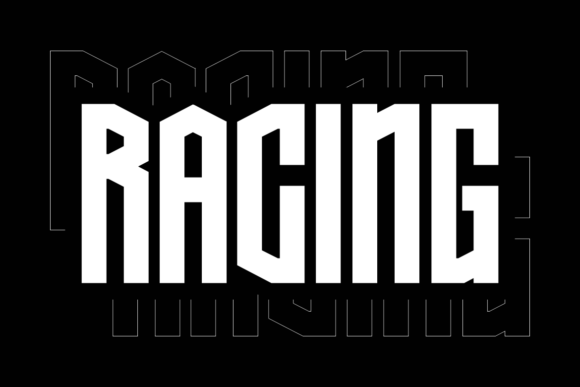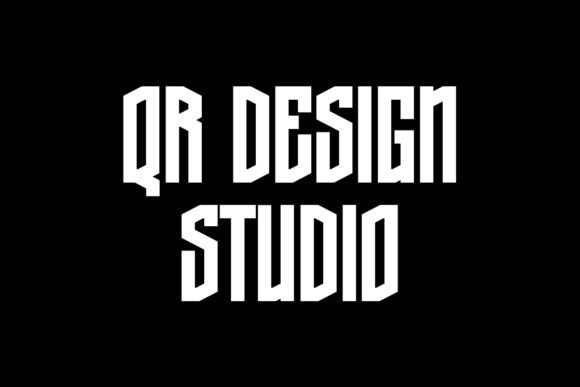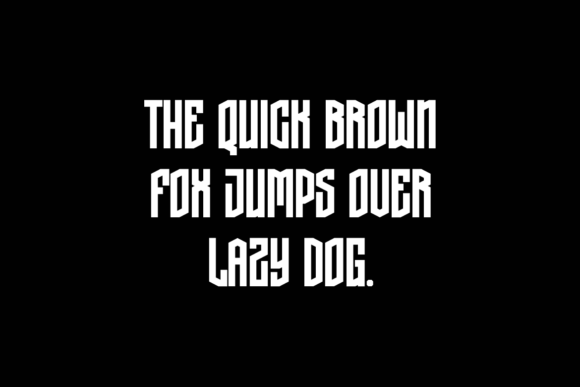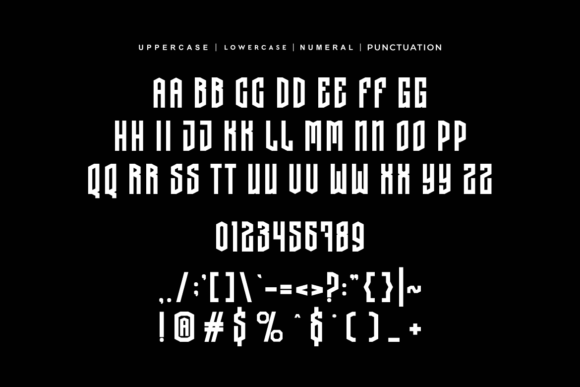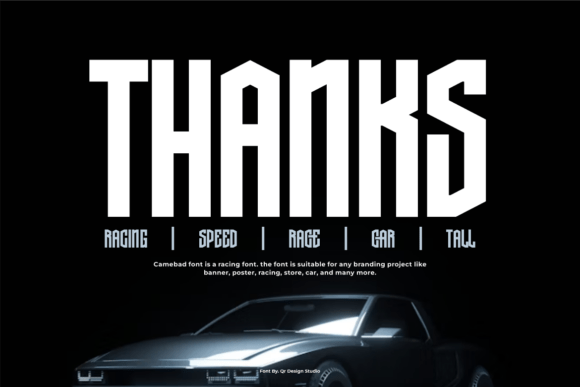
Unleash Your Creativity with Camebad Font: The Ultimate Racing Typeface
I’ll never forget the time I was working on a racing game project, and my client asked me to create a bold, eye-catching title that would capture the essence of speed and adrenaline. I scoured the internet for the perfect font, but nothing seemed to fit the bill. That was until I stumbled upon Camebad Font. With its tall, angular letters and strong geometric design, it was love at first sight! 💥
In this article, we’ll dive into the world of Camebad Font, exploring its features, benefits, and uses. Whether you’re a designer, crafter, or creative hobbyist, you’ll learn how to harness the power of this incredible typeface to take your projects to the next level.
What Makes Camebad Font So Special?
Camebad Font is a bold, modern racing typeface built for speed, power, and adrenaline. Its sharp edges and bold presence make it ideal for titles, headlines, and branding where attention and strength are key. Here are some of the features that make Camebad Font stand out:
- ✨ Tall and angular letters: Perfect for creating eye-catching titles and headlines that demand attention.
- ✅ Strong geometric design: Gives your designs a sense of precision and intensity.
- ⚡️ Perfect for high-impact branding: Use Camebad Font to create logos, banners, and posters that leave a lasting impression.
What I Love About Camebad Font
- ✨ Versatility: Camebad Font can be used for a wide range of projects, from racing games to sports branding and automotive designs.
- ✅ Easy to read: Despite its bold and angular design, Camebad Font is surprisingly easy to read, even at smaller sizes.
- 💥 Attention-grabbing: This font is designed to grab attention, and it does so with style!
While Camebad Font is an incredible typeface, it’s not without its quirks. Here are a few things to keep in mind:
- 🤔 Limited use in body text: Due to its bold design, Camebad Font may not be the best choice for body text. Stick to titles, headlines, and branding.
- ⚠️ May not be suitable for all audiences: The bold and edgy design of Camebad Font may not be suitable for all audiences or projects. Use with caution!
The Backstory Behind Camebad Font
Camebad Font was inspired by the world of high-speed racing and the need for a bold, attention-grabbing typeface that could capture the essence of speed and adrenaline. The designer, a passionate racing enthusiast, set out to create a font that would fuel creativity and inspire designers to push the limits of their imagination.
Q: What type of projects is Camebad Font best suited for?
A: Camebad Font is perfect for projects that require a bold, attention-grabbing typeface, such as racing games, sports branding, automotive designs, and high-impact branding.
Q: Is Camebad Font easy to read?
A: Despite its bold design, Camebad Font is surprisingly easy to read, even at smaller sizes. However, it’s best suited for titles, headlines, and branding rather than body text.